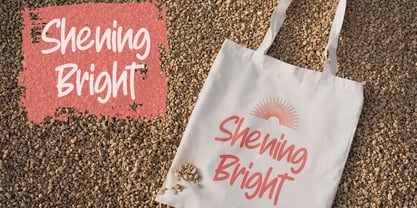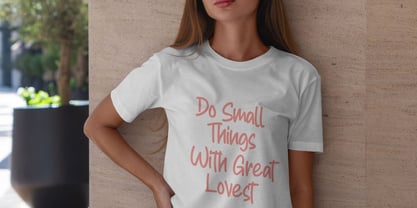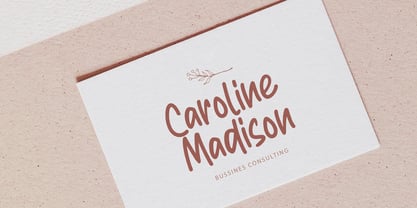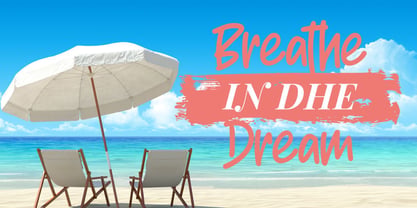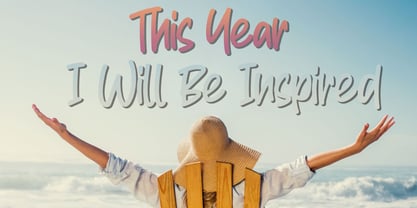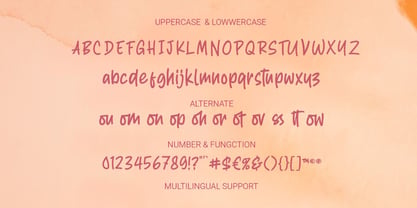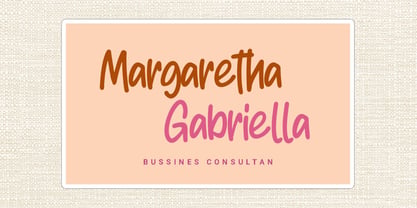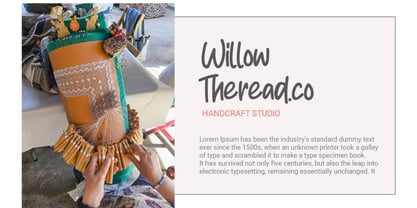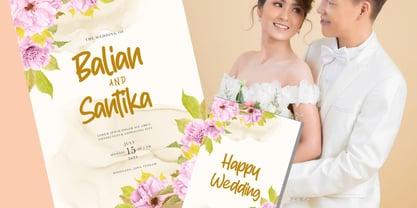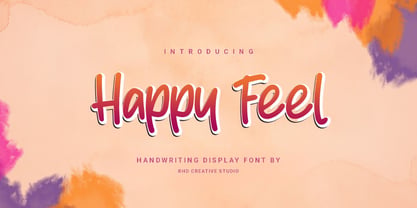
Happy Feel
Hello everyone, I would like to introduce Happy Feel - Handwriting Display Font.
Happy Feel - Handwriting Display Font with Handmade character. Happy Feel - Handwriting Display Font , Modern font to make your design project stand out! Happy Feel - Modern Script Font a perfectly choice for any creative endeavor, creating, modern, chic, lifestyle design such as logotype, title, cover, branding, invitations, wedding designs, display and magazine, social media posts, advertisements, printed quotes, product packaging, corporate brand, product designs, labels, photography, watermarks, special events and any other project with modern touch.